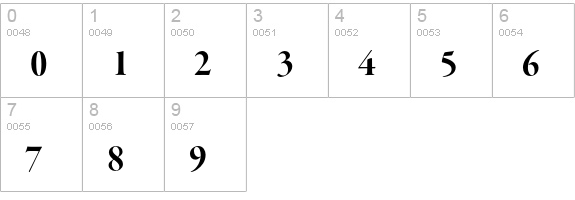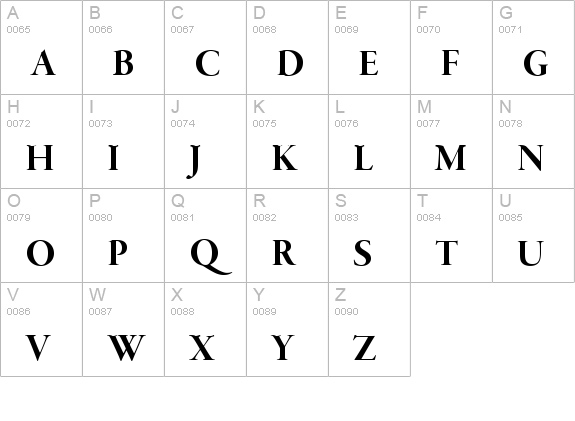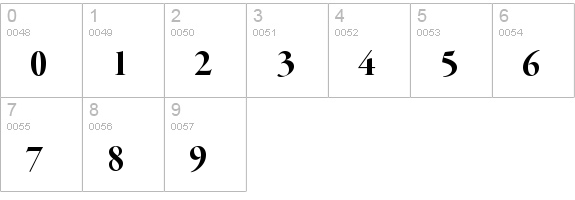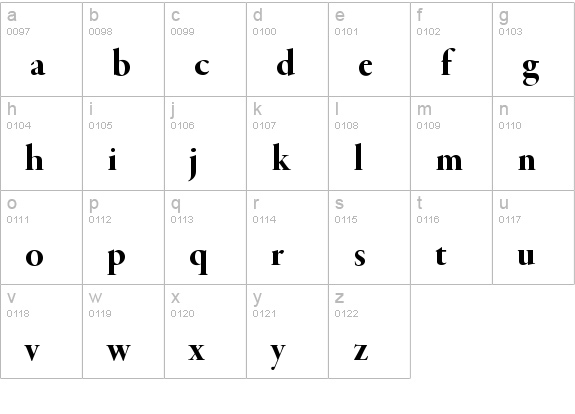
Garamond Premier Pro Bold Display Font Details
Garamond Premier Pro Bold Display is a strong, high-contrast variant in the Garamond typeface family \xE2\x80\x94 well suited to headlines, attention-grabbing titles, and strong calls-to-action.
Garamond Premier Pro Bold Display font is a sophisticated and elegant typeface that exudes a sense of timeless beauty and refinement. Its bold weight commands attention and makes a strong visual impact, perfect for headlines, titles, and other display purposes. The distinctive serifs and graceful curves of Garamond Premier Pro add a touch of classic charm to any design. And the best part? This exquisite font is available for free download at FontsMarket.com. Now you can elevate your projects with the luxurious Garamond Premier Pro Bold Display font without any cost. Don't miss out on the opportunity to enhance your designs with this stunning typeface that combines tradition with a modern flair. Download it today and bring a touch of sophistication to your creations!